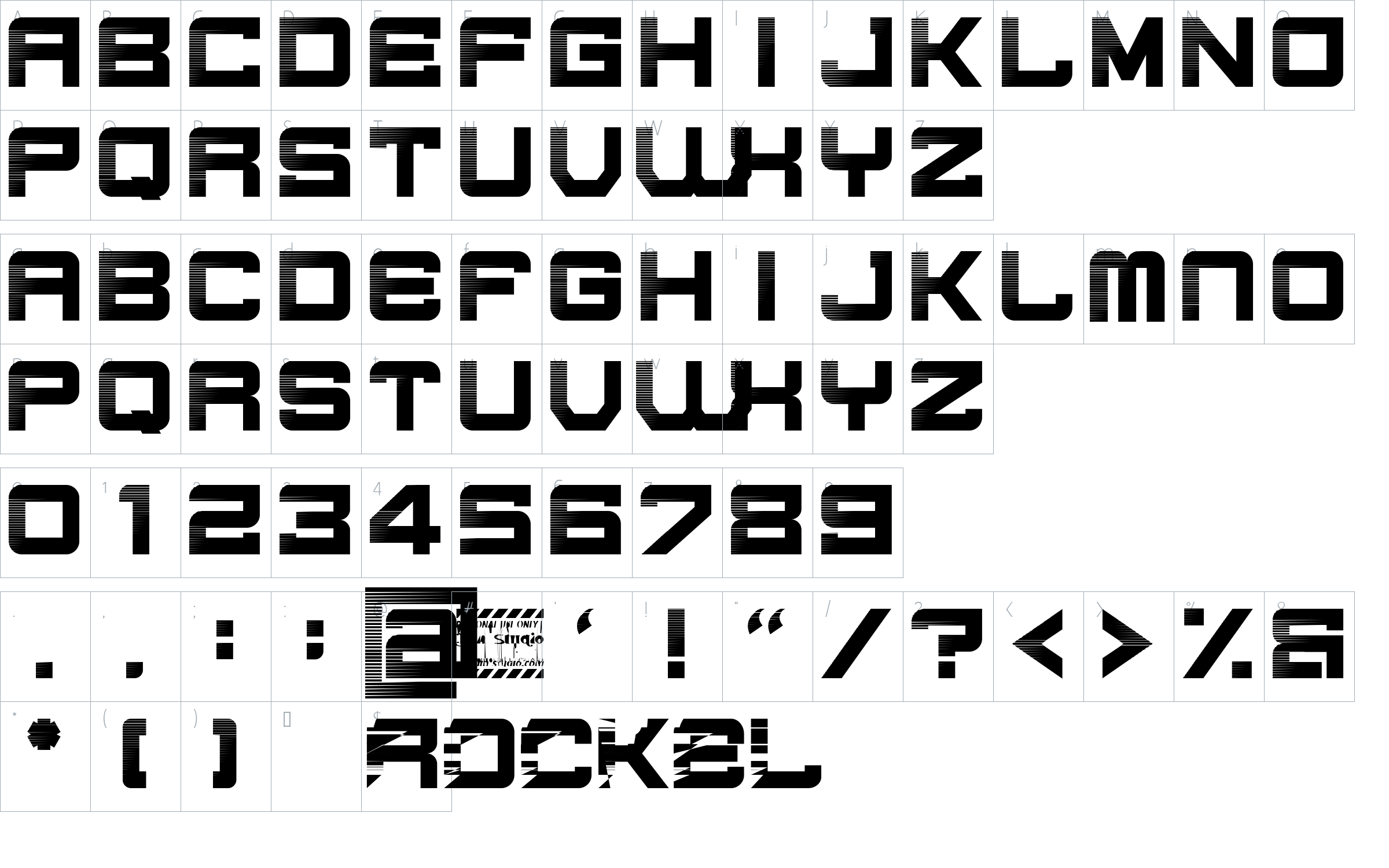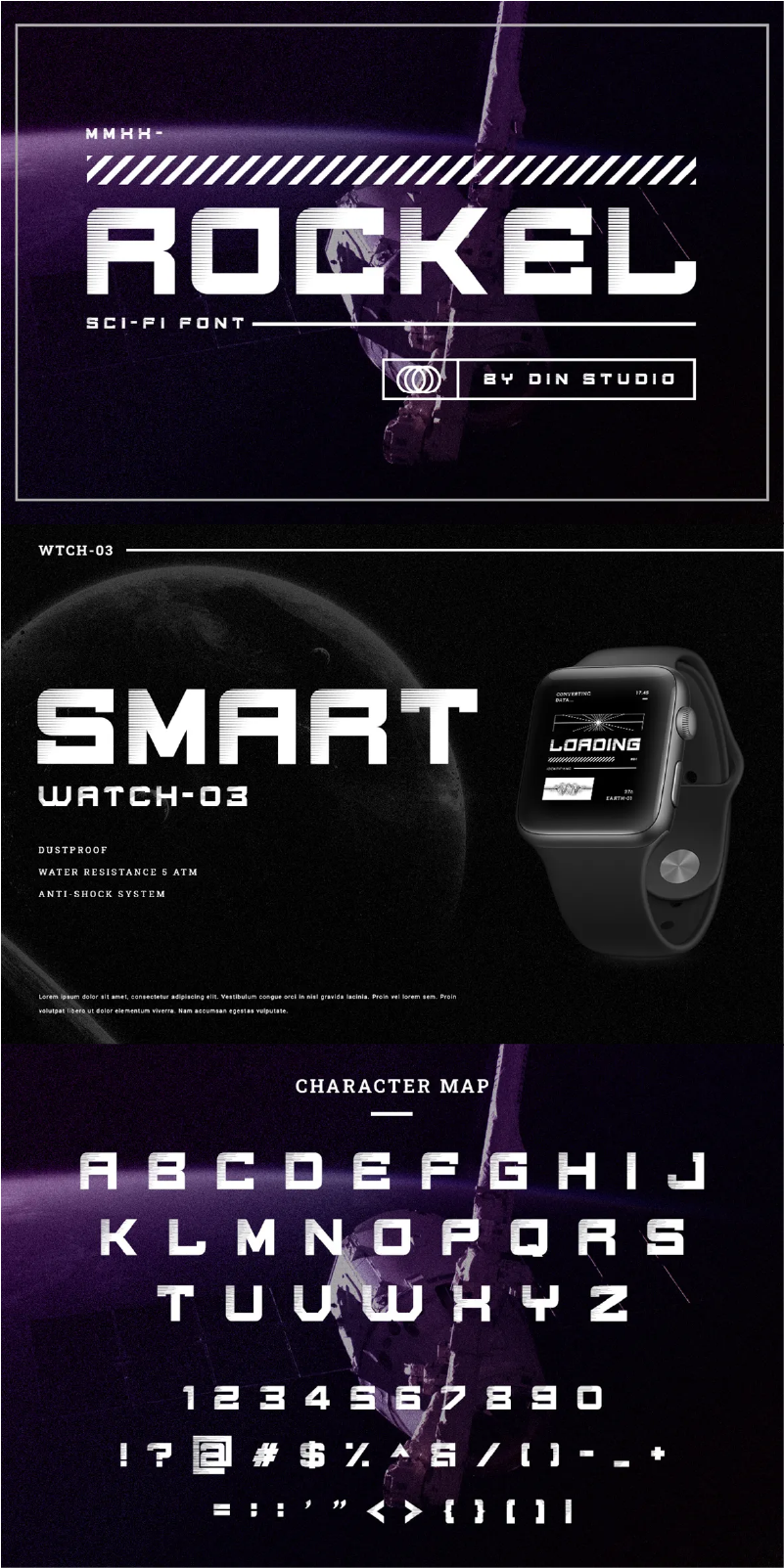
Rockel Font
About Rockel
Rockel is a bold and commanding display font that transports you to the realms of science fiction with its futuristic design. With its sci-fi themed style, Rockel captures the essence of futuristic technology.
Each letter is meticulously designed with sharp angles and sleek lines, creating a sense of modernity and sophistication that is both captivating and awe-inspiring. The large letters of Rockel command attention and make a bold statement, while the thick weight adds to its powerful presence. In addition, enjoy the features here.
Rockel fits in headlines, logos, posters, flyers, branding materials, print media, editorial layouts, and many more designs. Find out more ways to use this font by taking a look at the font preview.